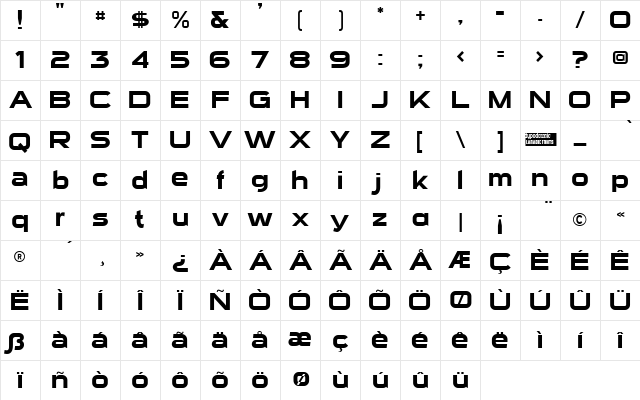
Sui Generis Regular
Sui Generis Family
Design Context for Sui Generis
Sui Generis is a composed and adaptable typeface that performs quietly and consistently across a wide range of design contexts.
Pro Tip: Use Sui Generis in both headline and body roles to test its range before committing to a single application.